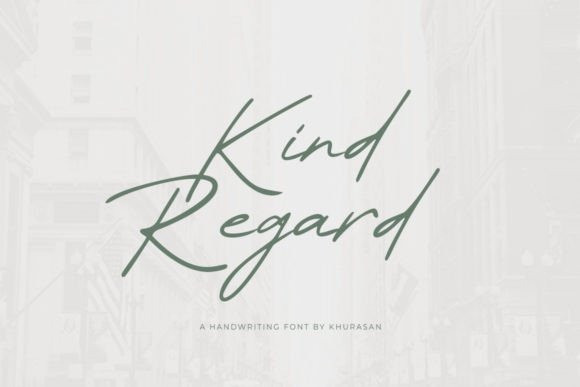
Kind Regard Font
Kind Regard Font is a clean, stylish, modern, and elegant script font perfect for posters, logos, magazines, book covers, banners, and many more! Get this amazing font, and use it to create lovely designs. It can easily be matched to an incredibly large set of projects, so add it to your creative ideas and notice how it makes them stand out!